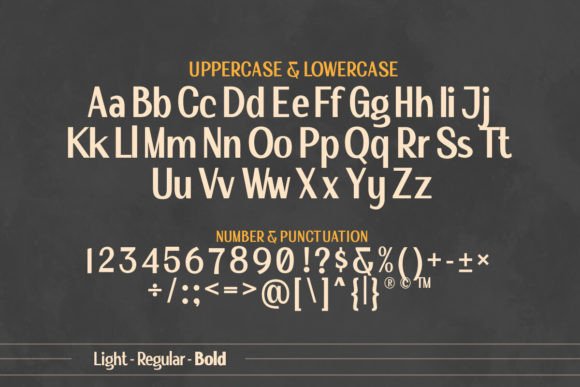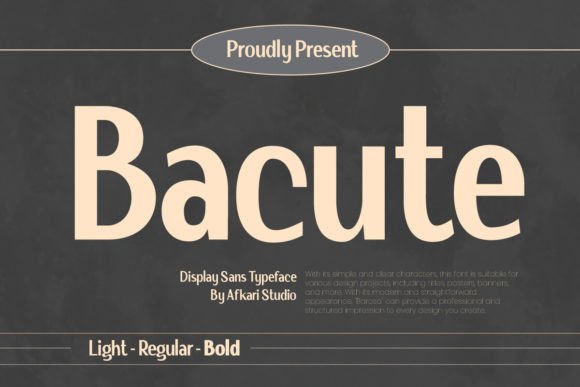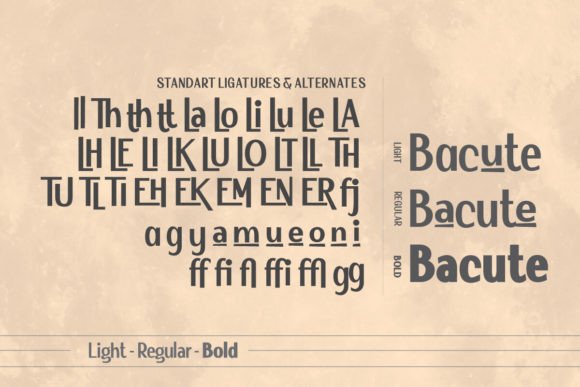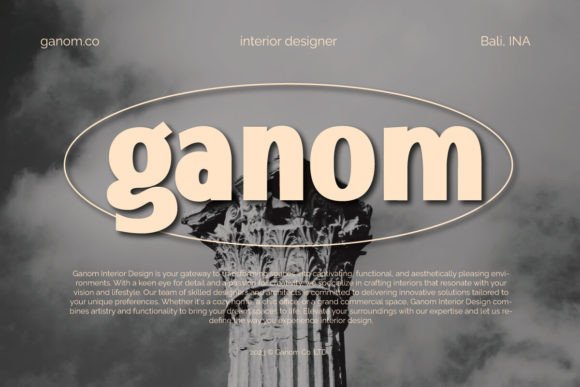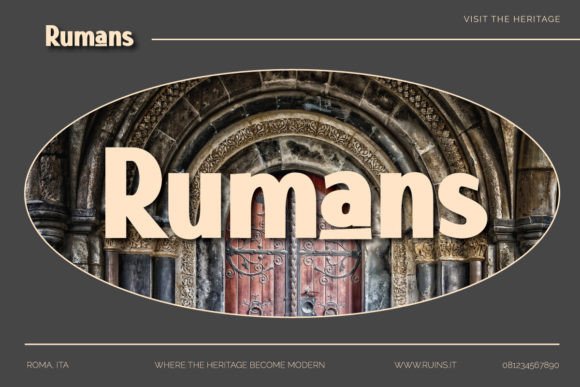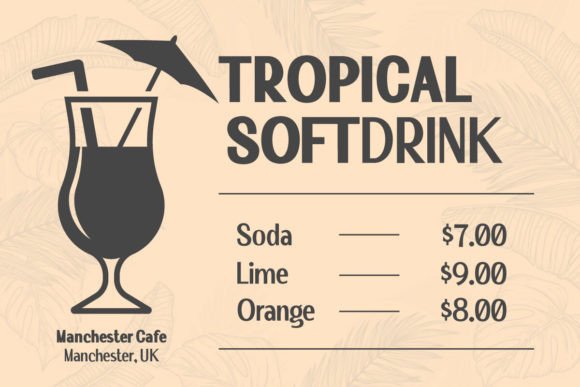
The Art of Self-Expression: Unleashing Your Creativity with Bacute Font
Have you ever stared at a blank canvas, feeling like a spark is missing to ignite your creativity? Perhaps it’s the perfect moment to break free from the ordinary and unleash your unique voice. For designers, this spark can be the difference between a decent project and a masterpiece. That’s where BACUTE Display Sans Typeface comes in – a captivating blend of contemporary design and readability that sets your projects apart with finesse and clarity.
With the Bacute Font, you’ll discover a world of possibilities to infuse your designs with personality and flair. Its alternative characters and glyphs offer a treasure trove of creative expressions, allowing you to personalize your work and stand out in a crowded space. Whether you’re a seasoned designer or just starting out, this versatile font is an invaluable tool to elevate your craft and bring your vision to life.
Bacute Font Key Features
- Unique Characteristics: Designed with a unique blend of modern and classic elements, Bacute Font features a distinctive rounded edge and subtle flair at the terminals.
Bacute Font Review
I recently had the chance to work with the Bacute font, and I must say it’s an interesting addition to any design project. Here are my honest thoughts on what works well and what doesn’t.
- The Bacute font is perfect for creating a bold, eye-catching headline. Its unique design elements make it stand out from the crowd.
- The font is highly legible, even at smaller font sizes, making it suitable for body text as well.
- The Bacute font is highly customizable, with a range of weights and styles available, making it easy to match with other design elements.
- The Bacute font may not be suitable for projects that require a more traditional or formal look. Its bold design may come across as too playful or attention-seeking.
Overall, I think the Bacute font is a great choice for designers who want to add some visual interest to their projects. While it may have some limitations, its unique design and high customizability make it a great addition to any design arsenal.
Getting the Most Out of the Bacute Font
For optimal results, use the Bacute font in conjunction with bold or italic text to create visual interest.
Experiment with different font sizes and colors to achieve the desired effect.
Consider pairing the Bacute font with a sans-serif font for a clean and modern look.
The Bacute font is ideal for:
Headlines and titles
Body text in creative or artistic projects
Any project where a unique and eye-catching font is desired.